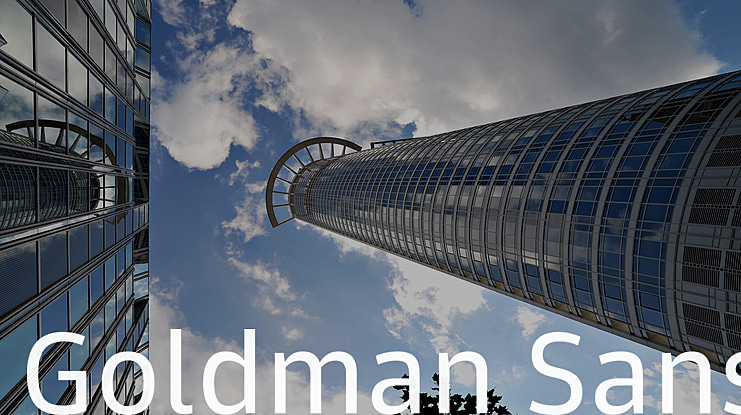
Goldman Sans Font Family
Goldman Sans is a clean, modern typeface designed for the needs of digital finance.
When we set out to design a custom typeface for Goldman Sachs, we knew that these three attributes would guide every decision we made along the way. The font needed to draw from the firm's 150-year heritage while looking ahead to what Goldman Sachs wanted to be in the future.
From open letter shapes, enlarged x-height, and optical balancing of individual letterforms, every part of Goldman Sans is designed for clarity and accessibility.
To be approachable without being whimsical, letter shapes are relatively unmannered. More distinctive treatments, however, pop up in lesser-used characters, such as the ampersand.
Goldman Sans has to excel in readability of large quantities of very small numbers…
Lots and lots of very small numbers.
The numbers balance harmoniously with the alphabetic design language without compromising their performance as a system in their own right. Careful attention has been paid to ensure ample distinction between commonly confused shapes.
Restrained uppercase character widths improve integration with tabular numbers. Fixed spacing across multiple weights ensures columns of numbers line up.
By balancing optical weights of the numerals and avoiding complex strokes that disrupt readability, Goldman Sans helps data-obsessed people find the information in the noise.
With six roman weights, three italic weights, and two condensed weights, Goldman Sans is poised to serve the firm for years to come.